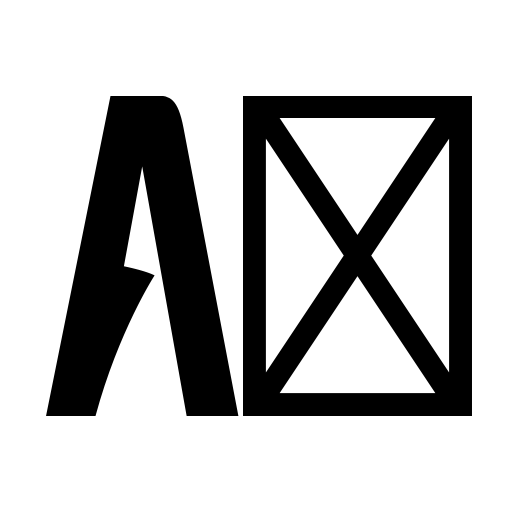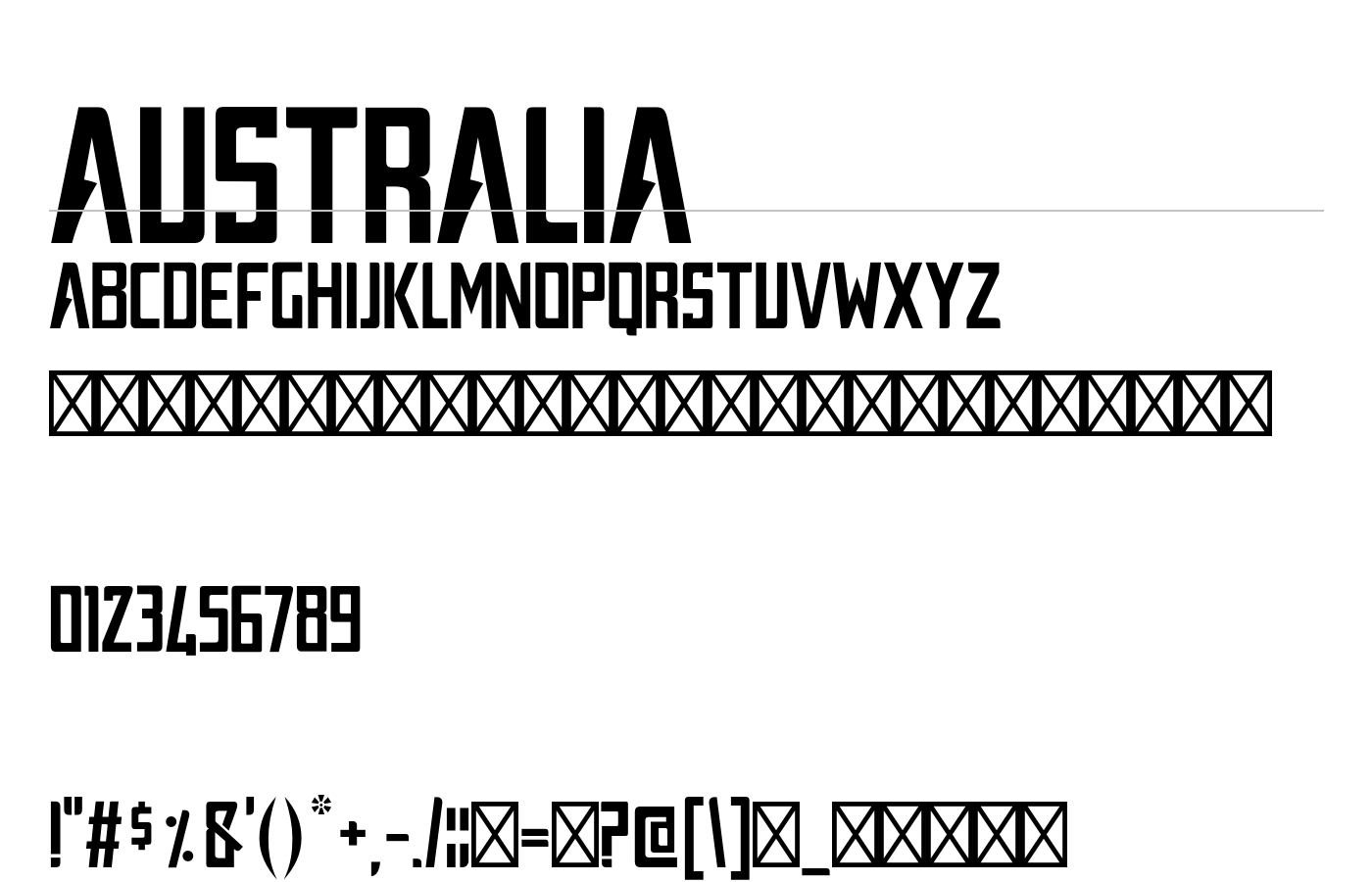
Australia is a bold, condensed sans serif font featuring tall, narrow letterforms with sharp, angular cuts that give it a strong, modern, and somewhat industrial feel. Its high contrast and unique stylized details, like the pointed elements in the A and R, make it an excellent choice for striking headlines, logos, and branding that require a distinctive, confident look. This font works particularly well in designs where a powerful, urban, or contemporary vibe is desired.
AUSTRALIA Font
About AUSTRALIA Font
| Font family | AUSTRALIA Font |
| Designer | Denver Elvis Ross |